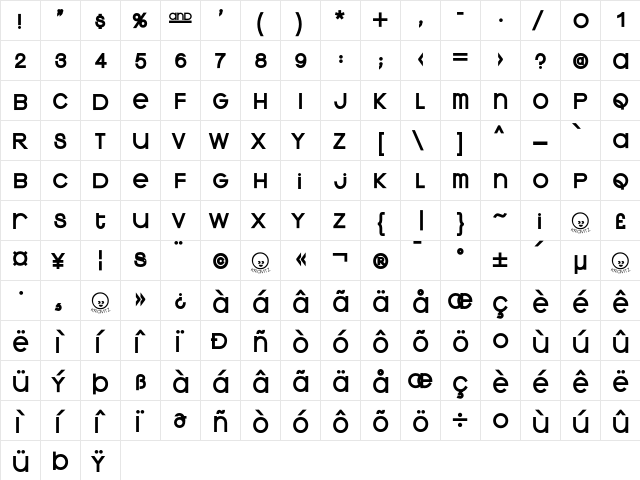
Kravitz ExtraThermal
Design Context for Kravitz Typeface
Kravitz takes a measured approach to typography — its balanced proportions and neutral character make it a reliable workhorse for both digital and print work.